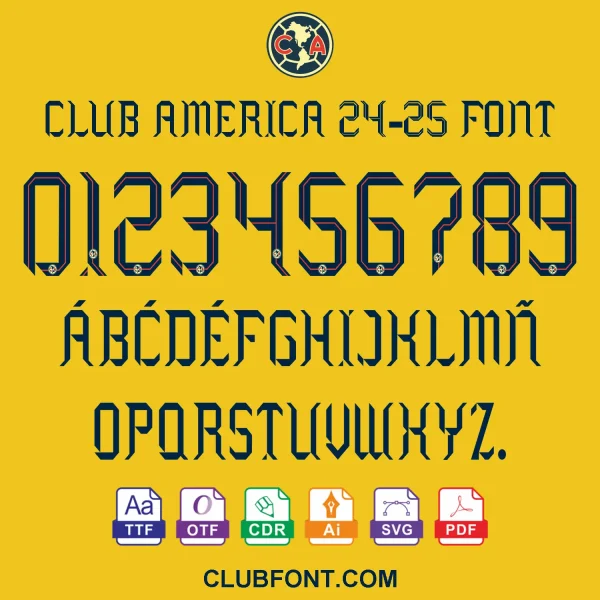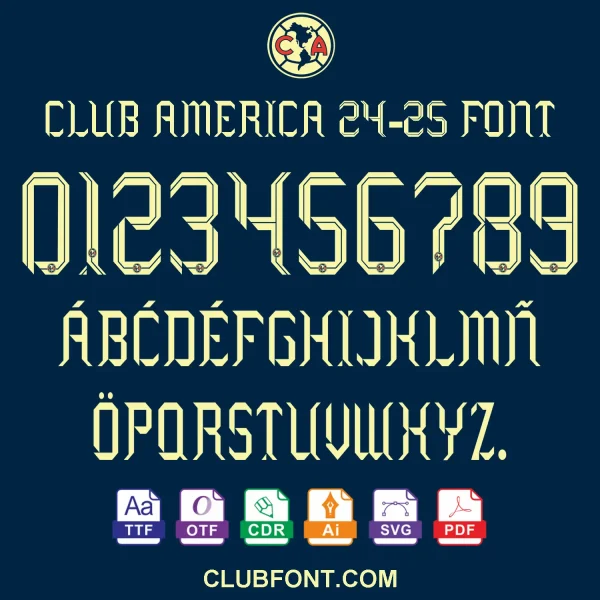
The 2024-25 season marks Nike’s final year with Club América before the switch to adidas in 2025-26, and the kit typography carries that send-off energy — the home shirt nods to the iconic 1970s crest era, while the away kit leans into club heritage detailing. Our Club América 2024-25 kit font pack reproduces the official name & number lettering used on both jerseys, ready for DIY printing, vinyl cutting, and studio design work.
- Complete A–Z uppercase, numbers 0–9, and common symbols used on Liga MX name sets.